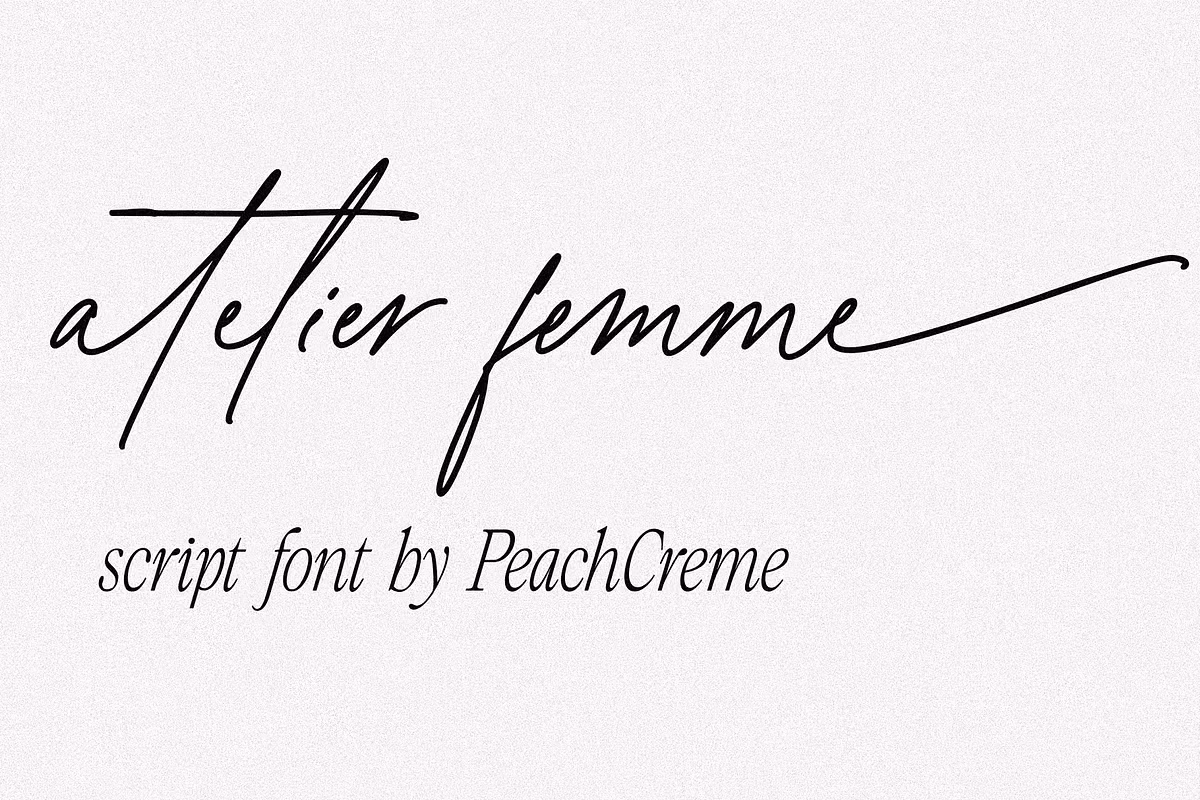
Atelier Femme // Modern Script Free Download
Atelier Femme // Modern Script Font Free Download
Atelier Femme // Modern Script Font Free Download is an elegant and stylish script typeface designed to add a touch of sophistication to any project. Perfect for wedding invitations, logos, branding, and other high-end designs, Atelier Femme features smooth, flowing letterforms that exude modern femininity and grace. Its contemporary flair and graceful curves make it ideal for designs that require a chic, personal touch.